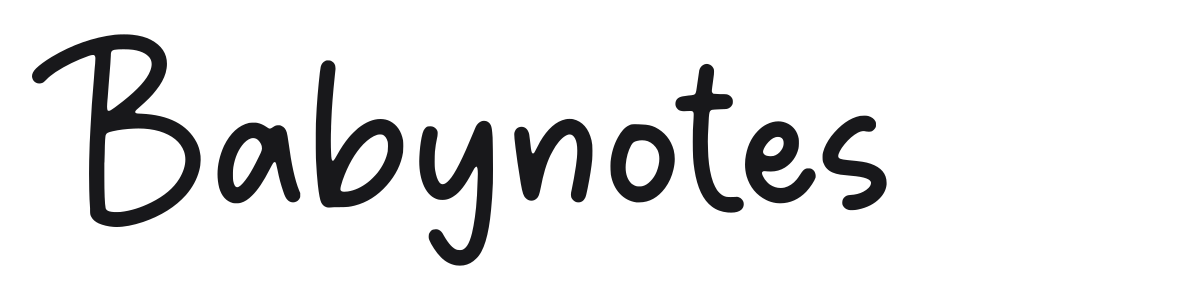
Babynotes
Babynotes is a casual handwritten font with rounded strokes and a cheerful, bouncy rhythm. The slight baseline variation and soft terminals give it the feel of something written quickly with a felt-tip pen. It works well for children's content, greeting cards, and any project that needs warmth without formality.